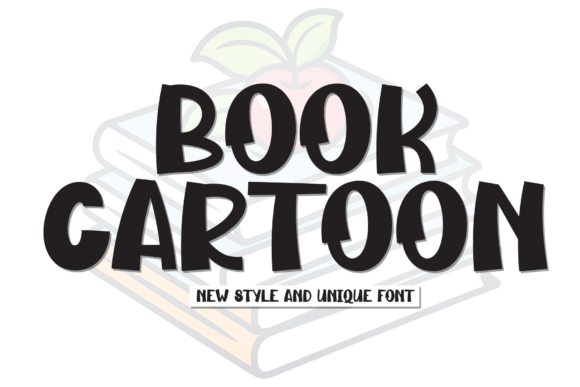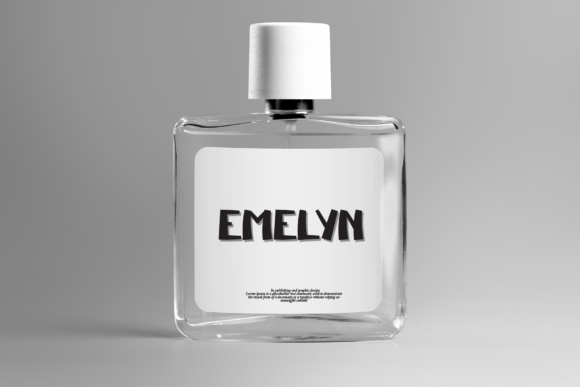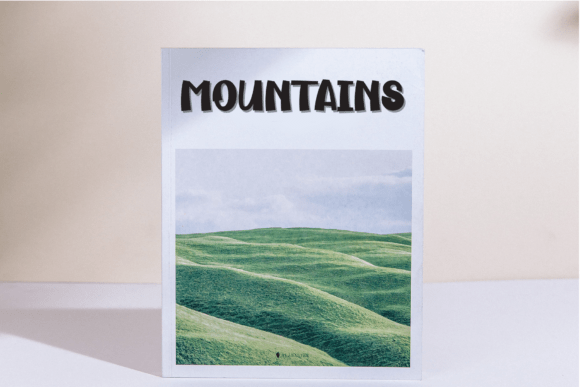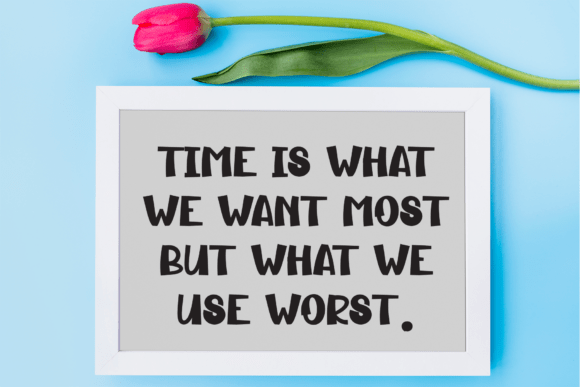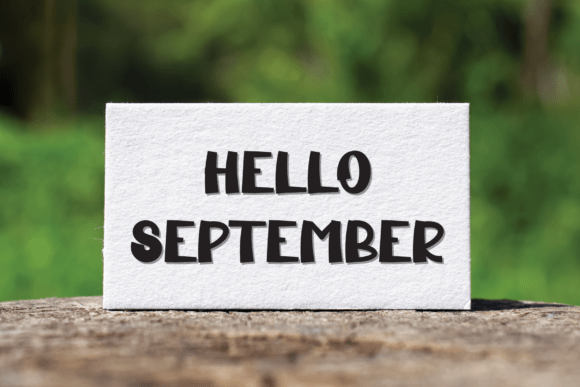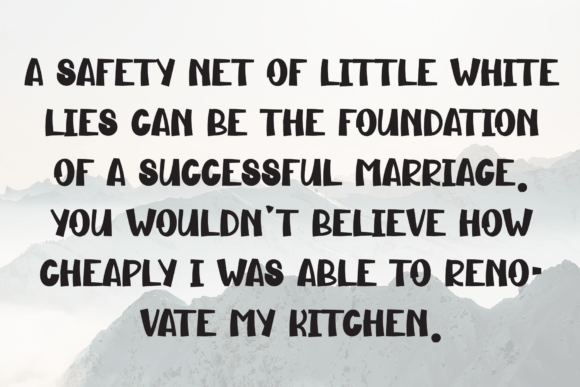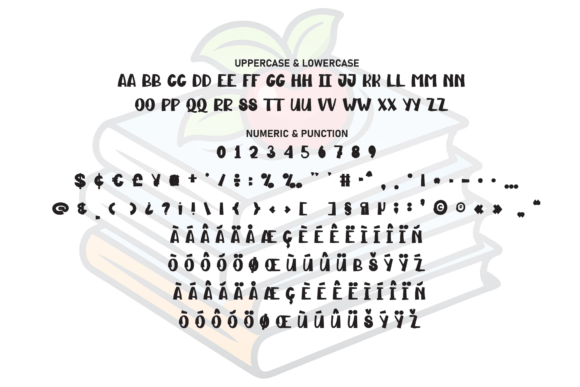
Have you ever stared at a blank page, trying to come up with the perfect font for your design project? You know, that elusive combination of style, clarity, and personality that makes your work stand out from the crowd? I’ve been there too, and I’m excited to share with you a game-changer: the Book Cartoon Font.
This casual display font is designed to bring a touch of modern simplicity and playfulness to your projects. With its clean shapes, soft edges, and well-balanced letterforms, Book Cartoon Font is perfect for posters, branding, packaging, and social media graphics. What makes it truly valuable for designers is its ability to add a fresh and friendly touch to any project, while still maintaining readability and style.
Key Features of Book Cartoon Font
- Font Family: The Book Cartoon Font is a unique, hand-drawn font designed to resemble a children’s book. It features a whimsical and playful feel, perfect for illustrations, headings, and titles.
- Unique Characteristics: The font features a distinctive, hand-drawn style with irregular lines, subtle imperfections, and a charming, storybook feel.
- Character Set: The font includes a comprehensive set of characters, including uppercase and lowercase letters, numbers, punctuation marks, and special characters, ensuring that designers have all the tools they need to create engaging and creative designs.
Book Cartoon Font Review
As a designer, I’ve had the chance to work with Book Cartoon Font, and I have to say it’s a unique and charming font that can add a playful touch to your designs. ✨ The font’s hand-drawn feel and subtle imperfections give it a warm and inviting personality that’s perfect for projects that need a bit of whimsy.
- ✨ The font’s expressive nature makes it ideal for use in children’s books, educational materials, and other projects that require a friendly tone.
- ✨ The font’s range of weights and styles offers plenty of flexibility for designers to experiment and find the perfect look for their project.
- ✨ The font is highly legible, even at small sizes, making it a great choice for text-heavy designs.
However, there are some limitations to consider. ⚠️ The font’s hand-drawn feel can sometimes make it difficult to read, especially for longer blocks of text. Additionally, the font may not be suitable for formal or professional projects where a more traditional, clean font is preferred.
Overall, I think Book Cartoon Font is a great choice for designers looking to add some personality to their projects. While it may not be the best fit for every design, it’s definitely a unique and charming option that can help you stand out from the crowd.
Tips for Getting the Most Out of Book Cartoon Font
Use Book Cartoon Font to create playful and whimsical designs.
Pair Book Cartoon Font with bold and bright colors to make your designs stand out.
Experiment with different font sizes and styles to add visual interest to your designs.
Alternatives to Book Cartoon Font for Designers
Great Vibes is a modern, hand-drawn font that conveys a sense of elegance and sophistication. It’s perfect for designers who want to add a touch of whimsy to their projects without looking too childish. Compared to Book Cartoon Font, Great Vibes is more refined and suitable for a wider range of design applications.
Alex Brush is a beautiful, handwritten font that’s ideal for designers who want to add a personal touch to their work. It’s perfect for invitations, quotes, and other creative projects where a handwritten feel is desired. Unlike Book Cartoon Font, Alex Brush has a more elegant and sophisticated look that’s suitable for high-end designs.